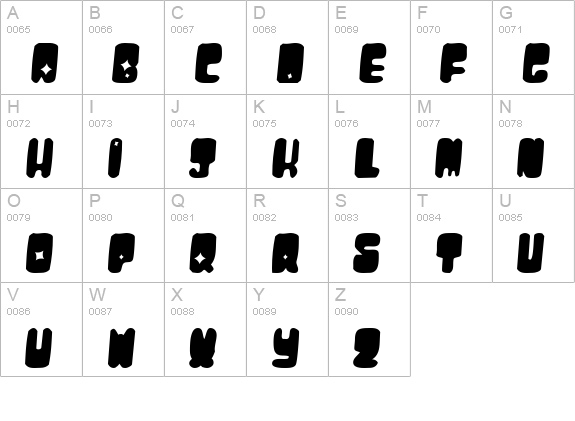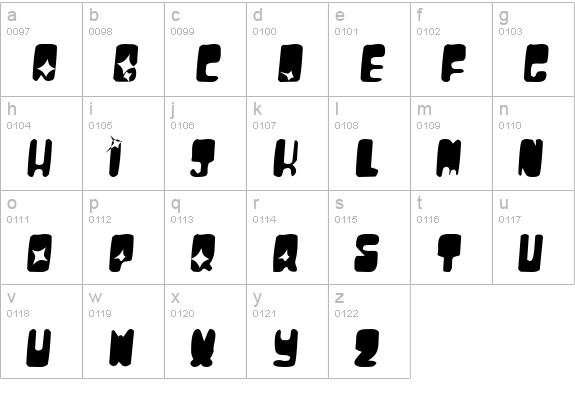
MoonPie Cadet Font Details
MoonPie Cadet font is a charming and whimsical typeface that exudes a playful and friendly vibe. With its rounded edges and bold lettering, this font is perfect for adding a touch of fun to your designs. Whether you're working on invitations, posters, or social media graphics, MoonPie Cadet is sure to catch the eye and make a statement. The best part? MoonPie Cadet font is completely free to download at FontsMarket.com. You can easily access this delightful font and use it in your projects without any cost. So go ahead and unleash your creativity with MoonPie Cadet font today!